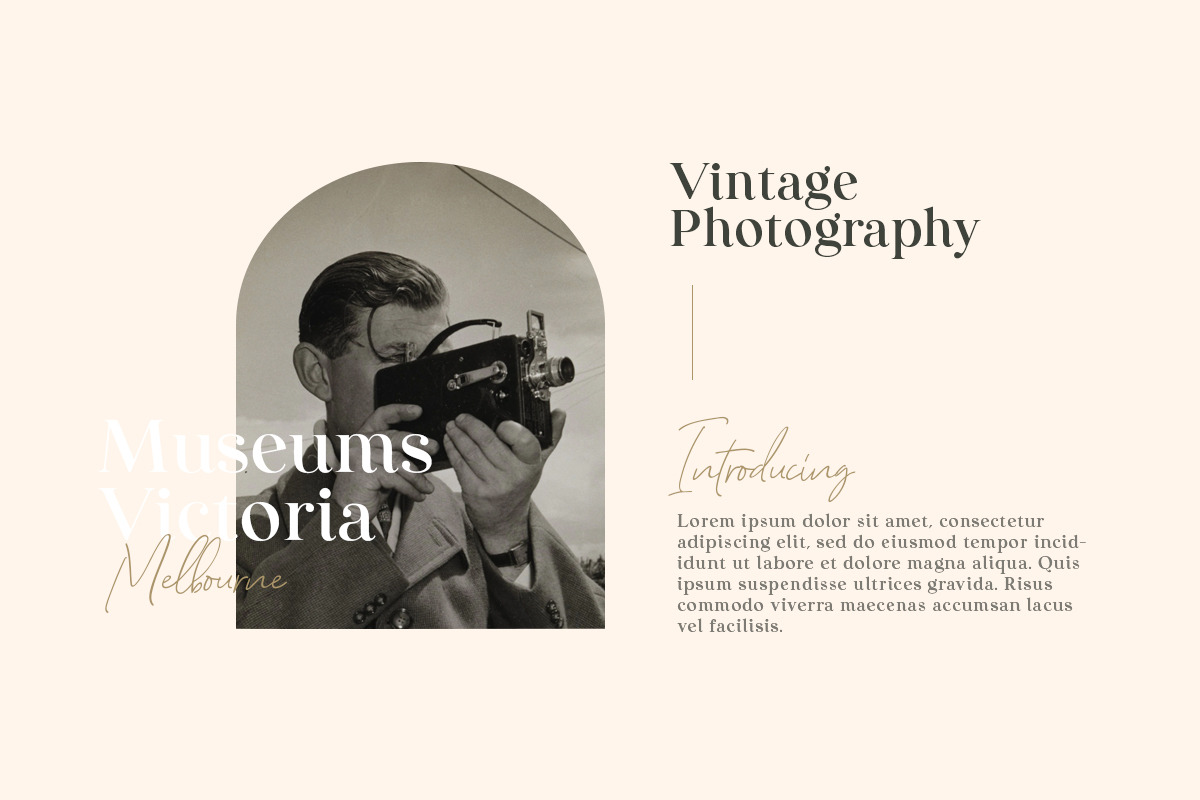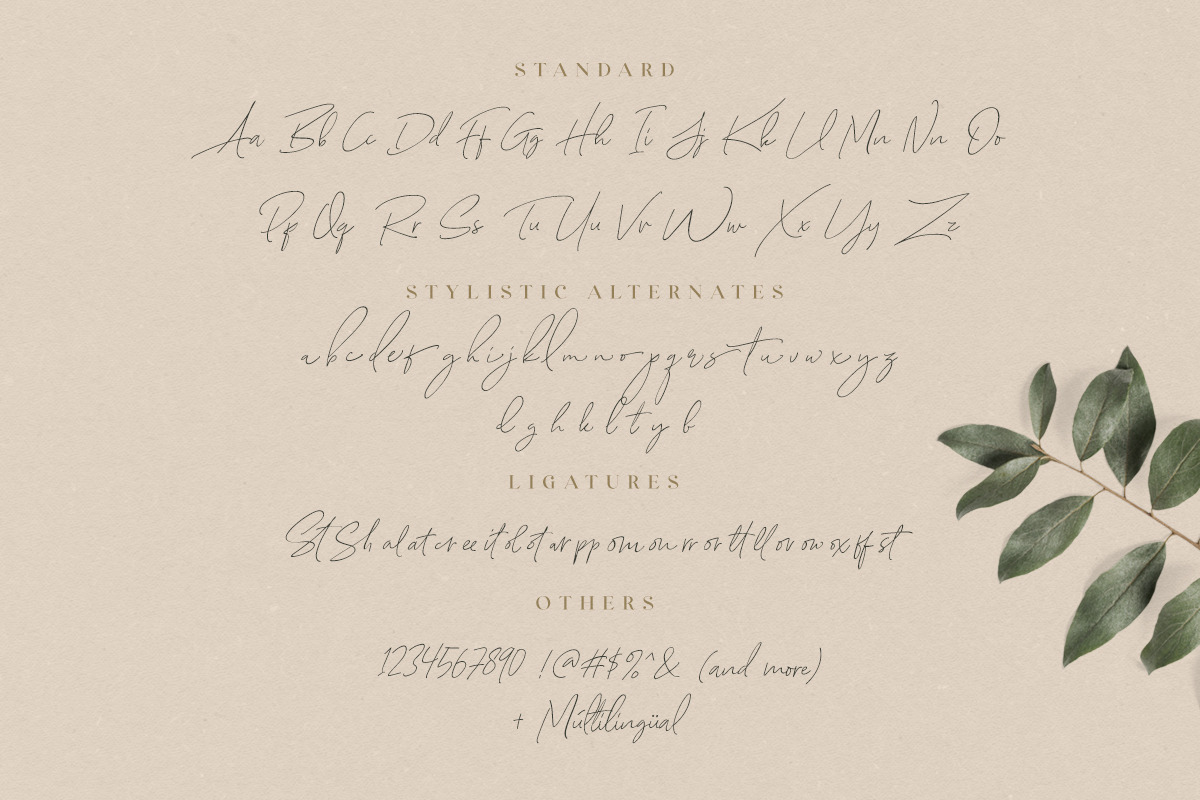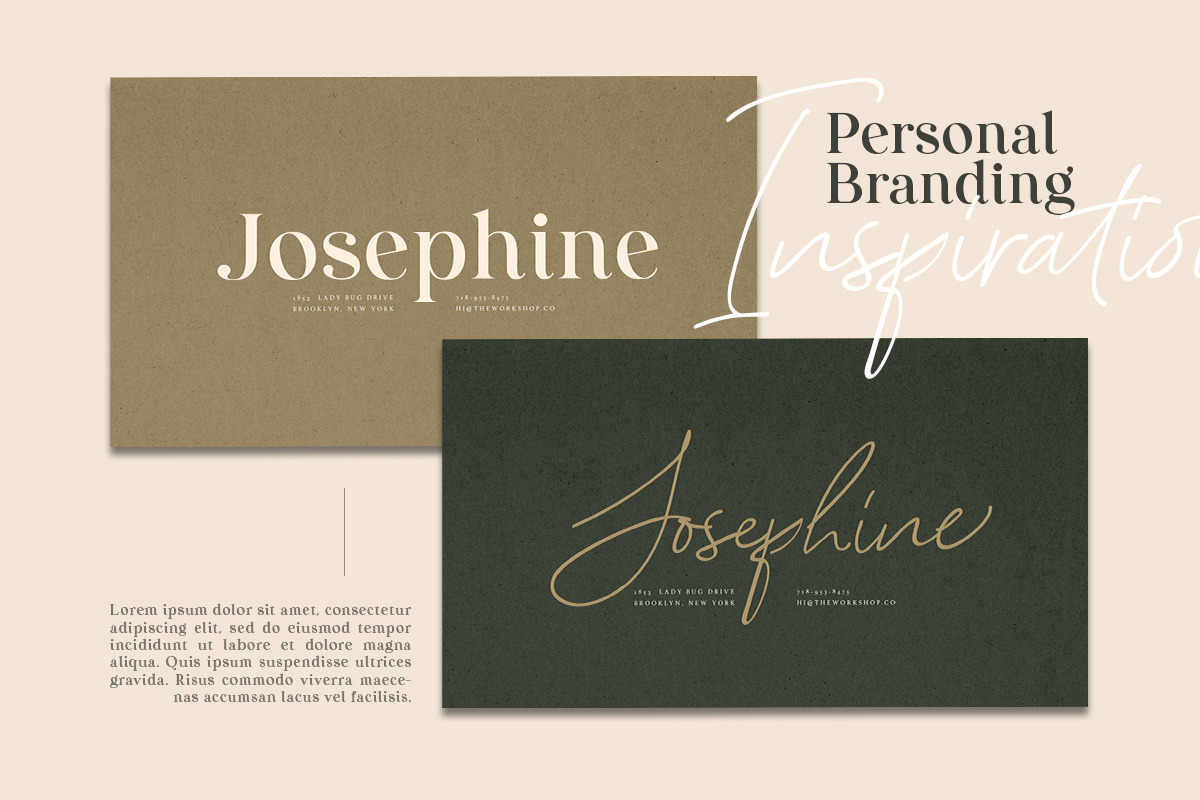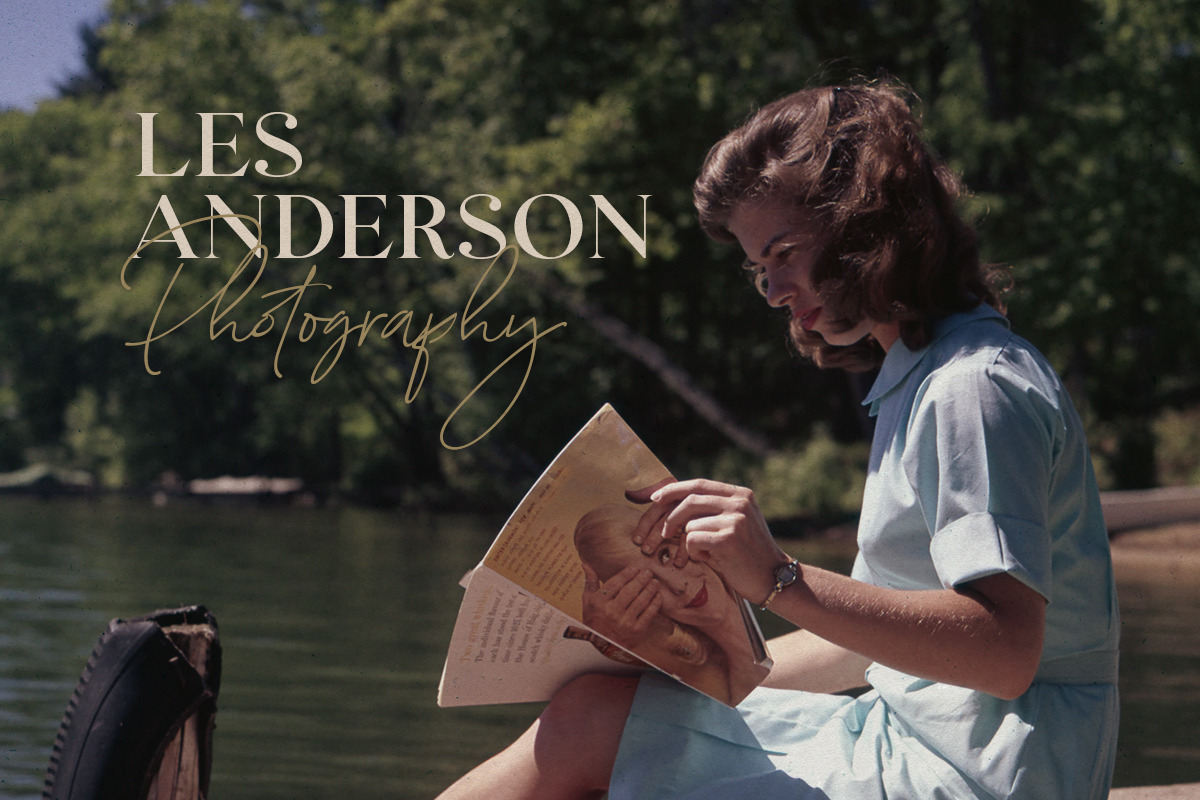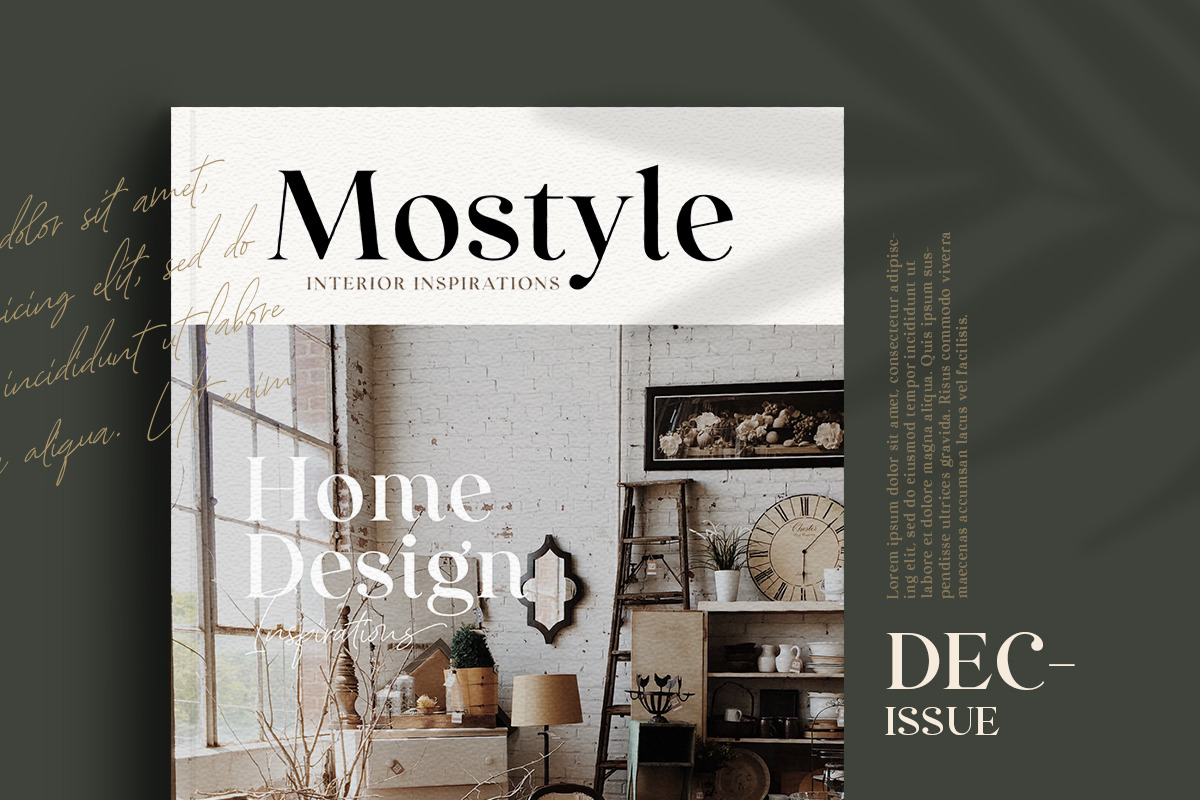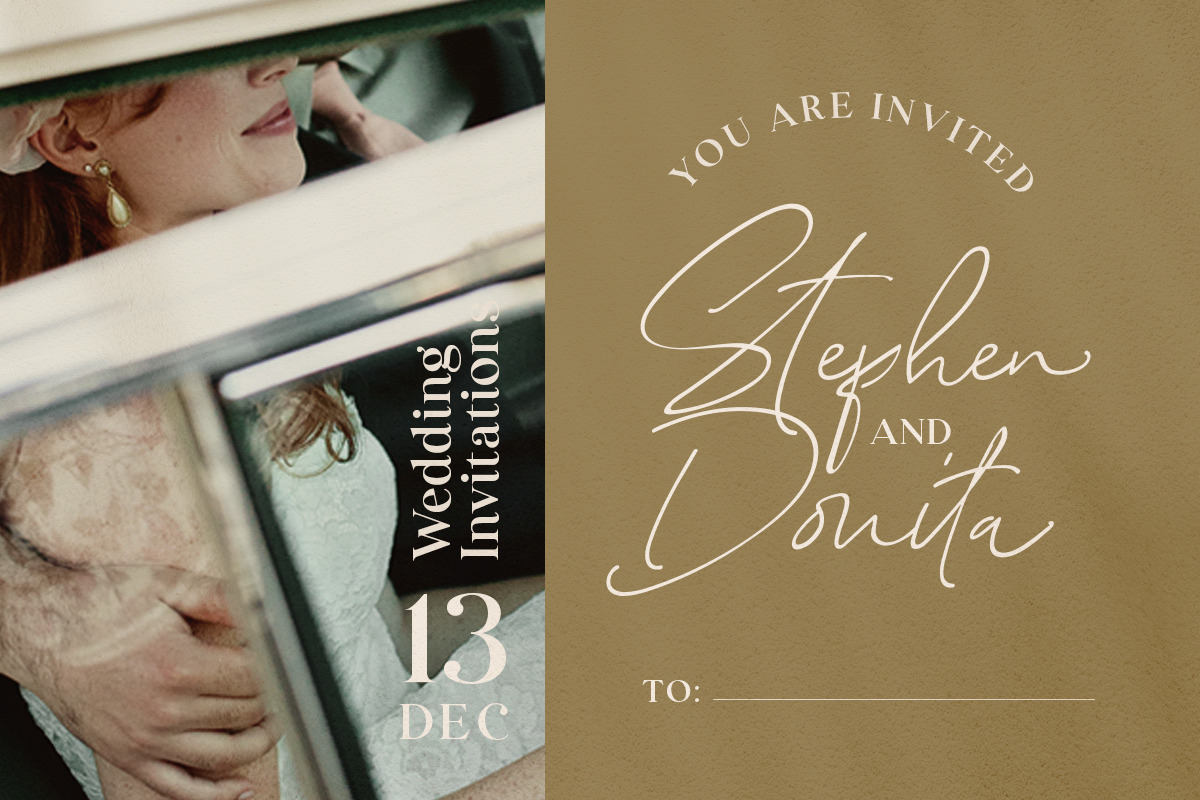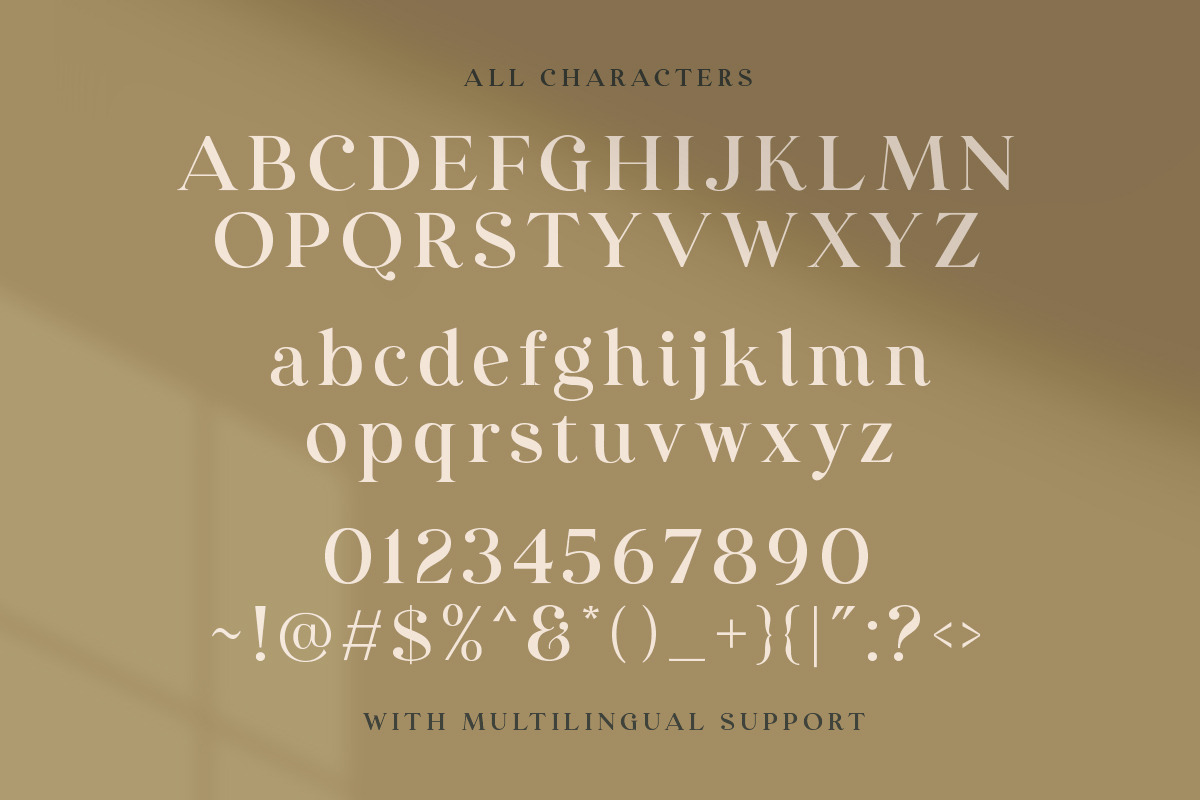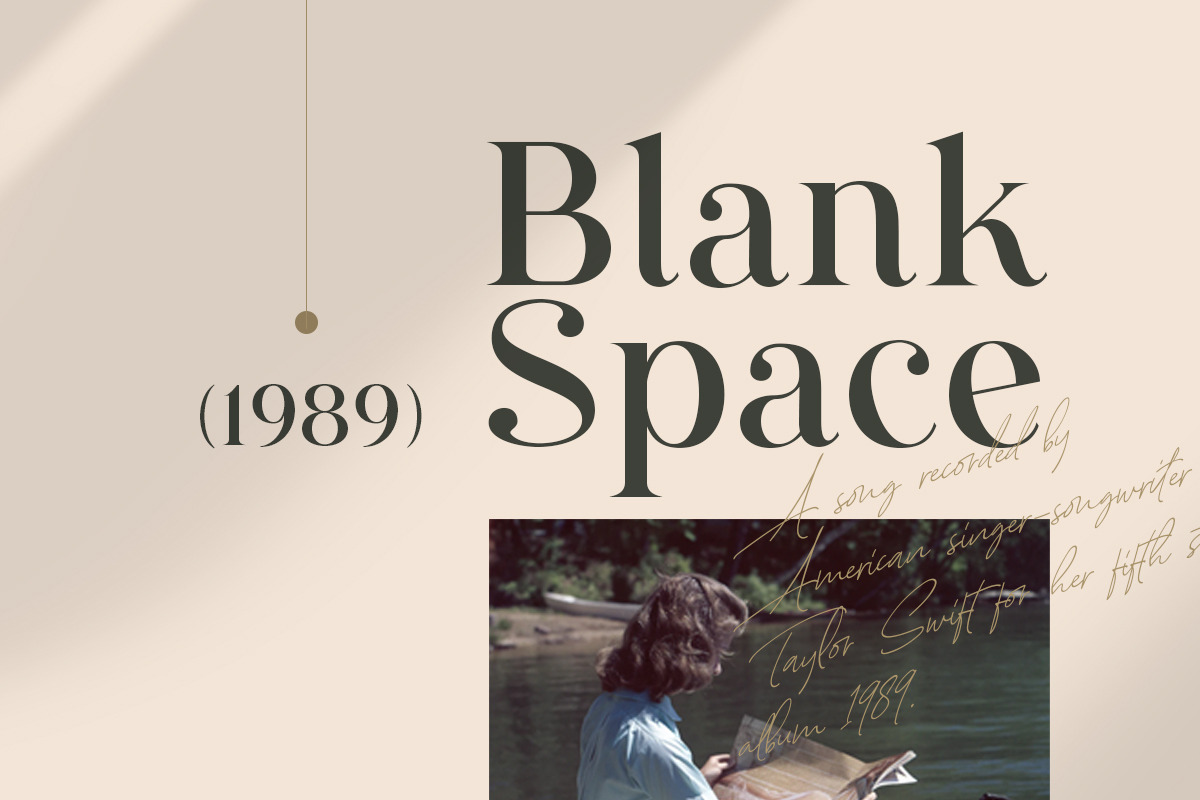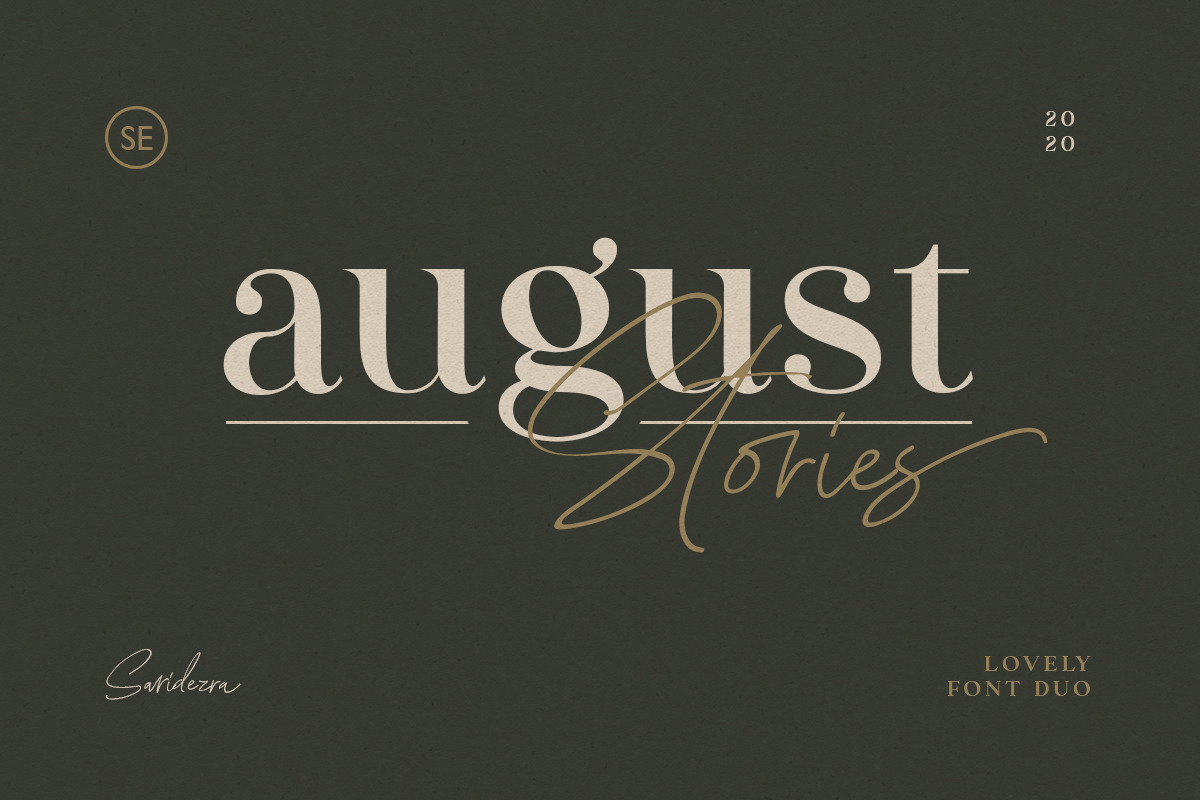
August Stories - LOVELY FONT DUO
Introducing, August Stories - Lovely Font Duo | Serif & Script
August Stories is delicate combination between chic serif and signature script font. Comes with two fonts, the simple yet beautiful crafted serif and stylish signature script. This font duo also support multilingual, number and symbol. The script also contains many ligatures. This font already PUA Encoded.